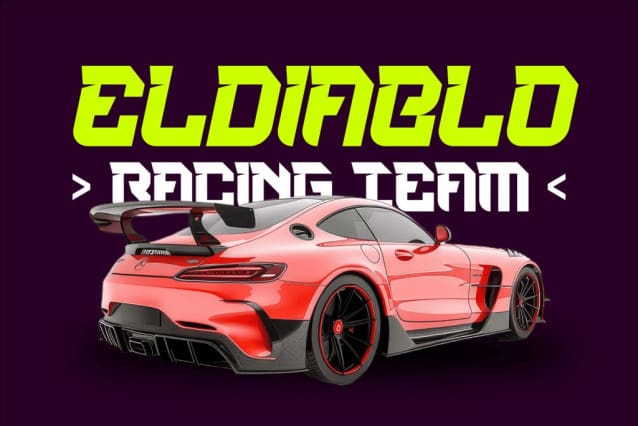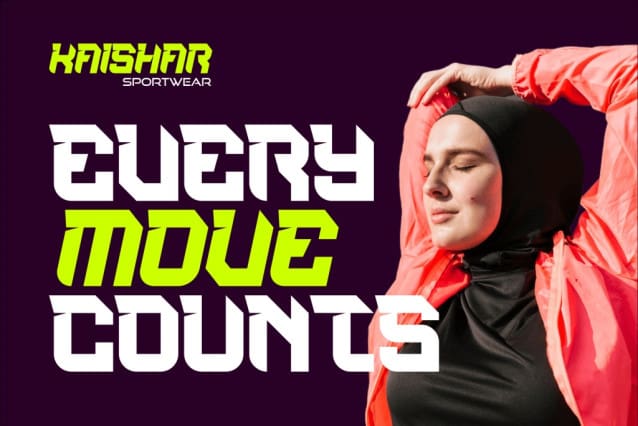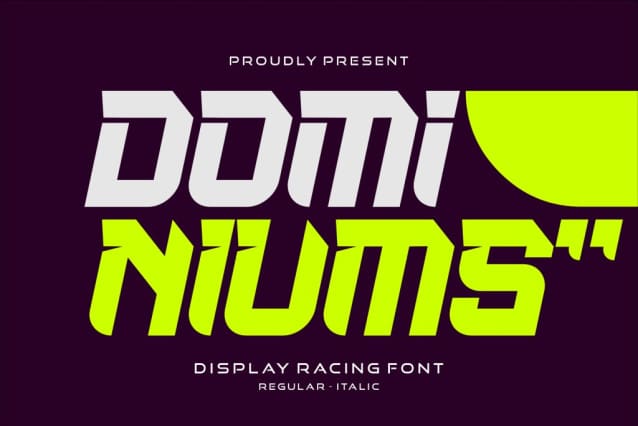
Dominiums Display Font
Dominiums Display Font, this bundle features strong, confident and powerful typefaces designed to work great with sports logos, club branding, apparel applications, labels and more.